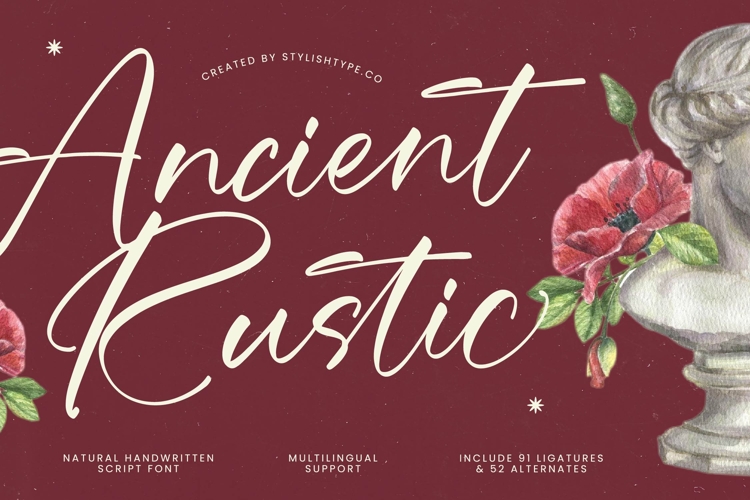
Ancient Rustic - Natural Handwritten Script Font
Ancient Rustic - Natural Handwritten Script Font is a beautifully expressive typeface defined by its dramatic swashes and highly organic stroke variations. This script offers an authentic, natural handwritten feel, making it the perfect choice when you require both sophistication and warmth. Its inherent vintage character delivers instant recognition and a sense of timeless craftsmanship to any visual communication.